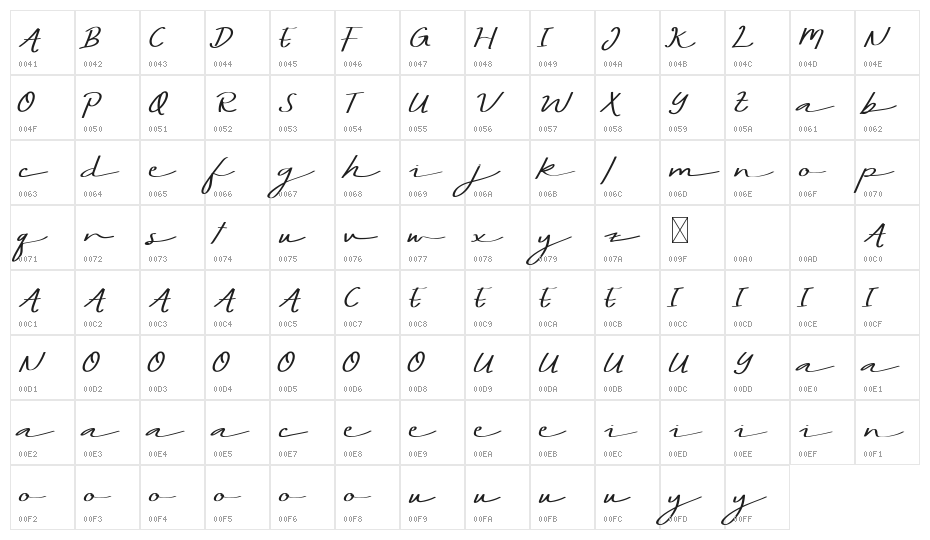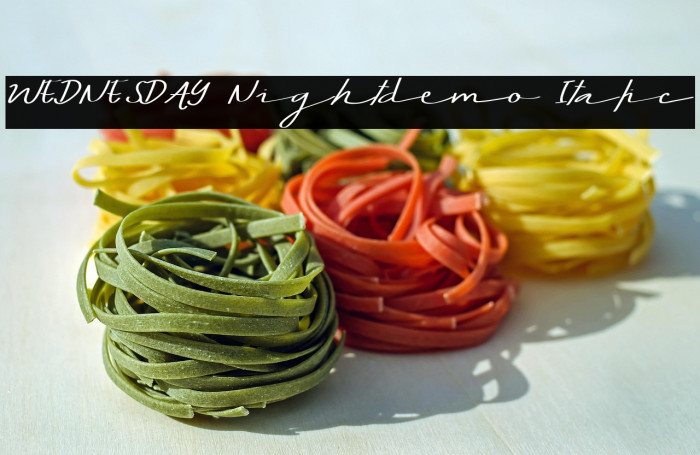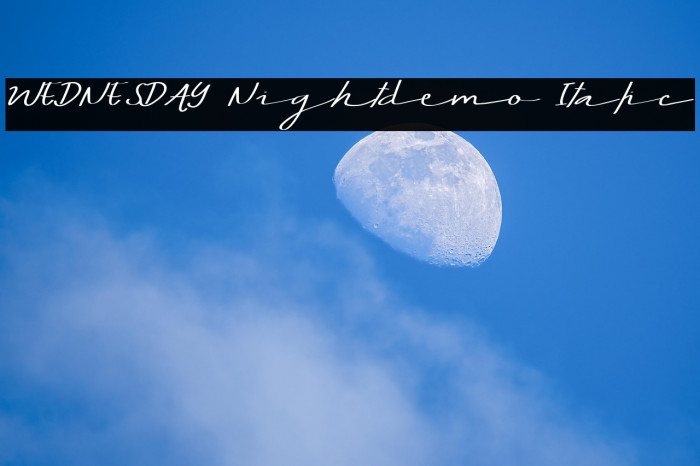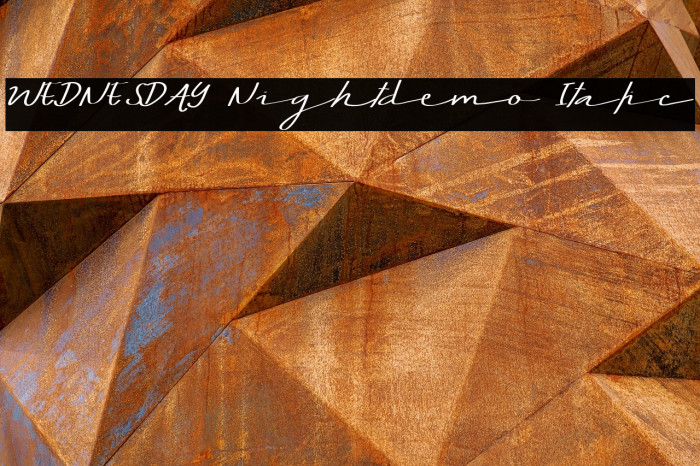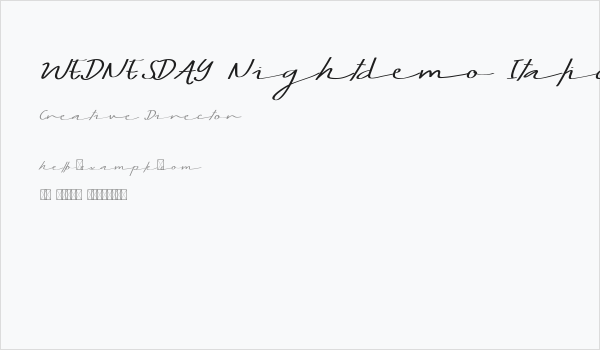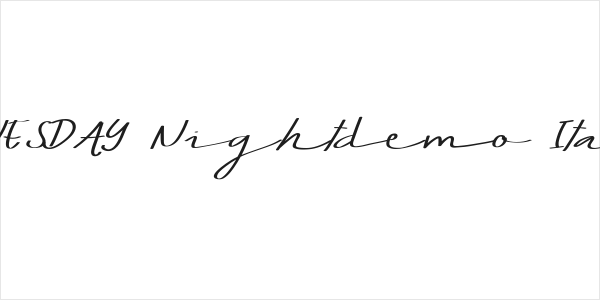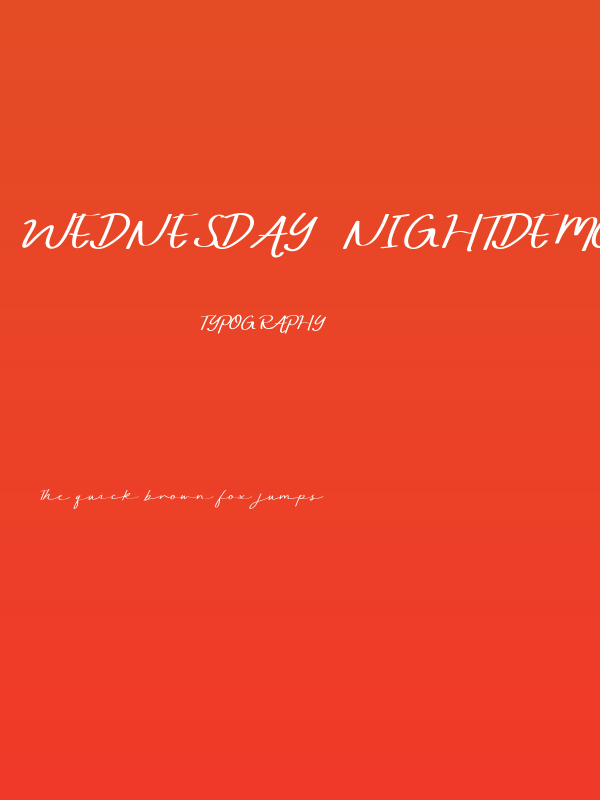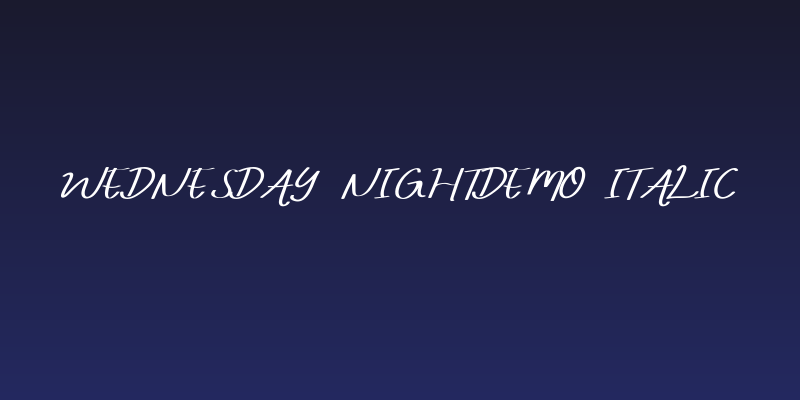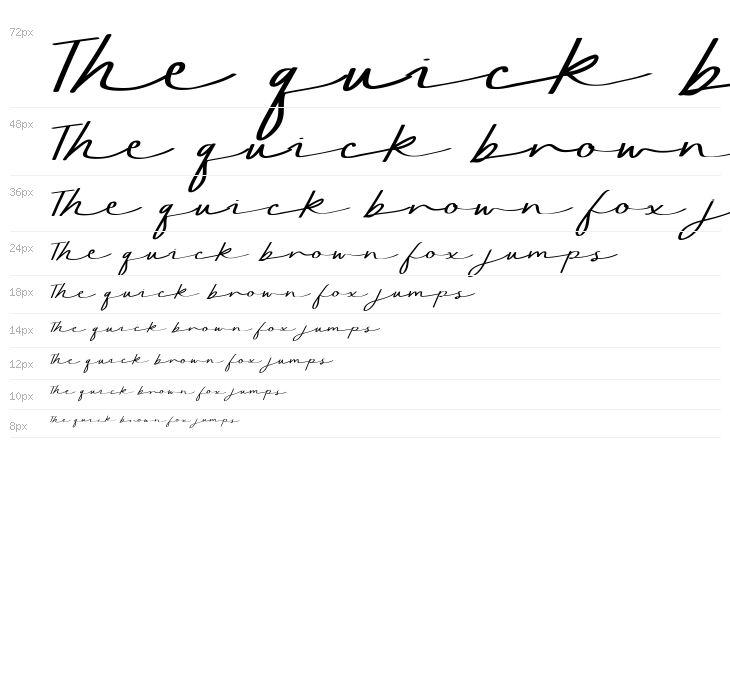
WEDNESDAY Nightdemo Italic Font
WEDNESDAY Nightdemo Italic Description
This font features a dynamic and flowing script style, characterized by its elegant and cursive letterforms. The uppercase letters exhibit a bold and confident presence, with sweeping curves and a slight slant that adds to the overall fluidity. The lowercase letters maintain a consistent rhythm, with elongated ascenders and descenders that enhance the font's graceful appearance. The strokes are smooth and connected, creating a harmonious and cohesive look. This font is well-suited for projects that require a touch of sophistication and elegance, such as invitations, branding, and editorial design.